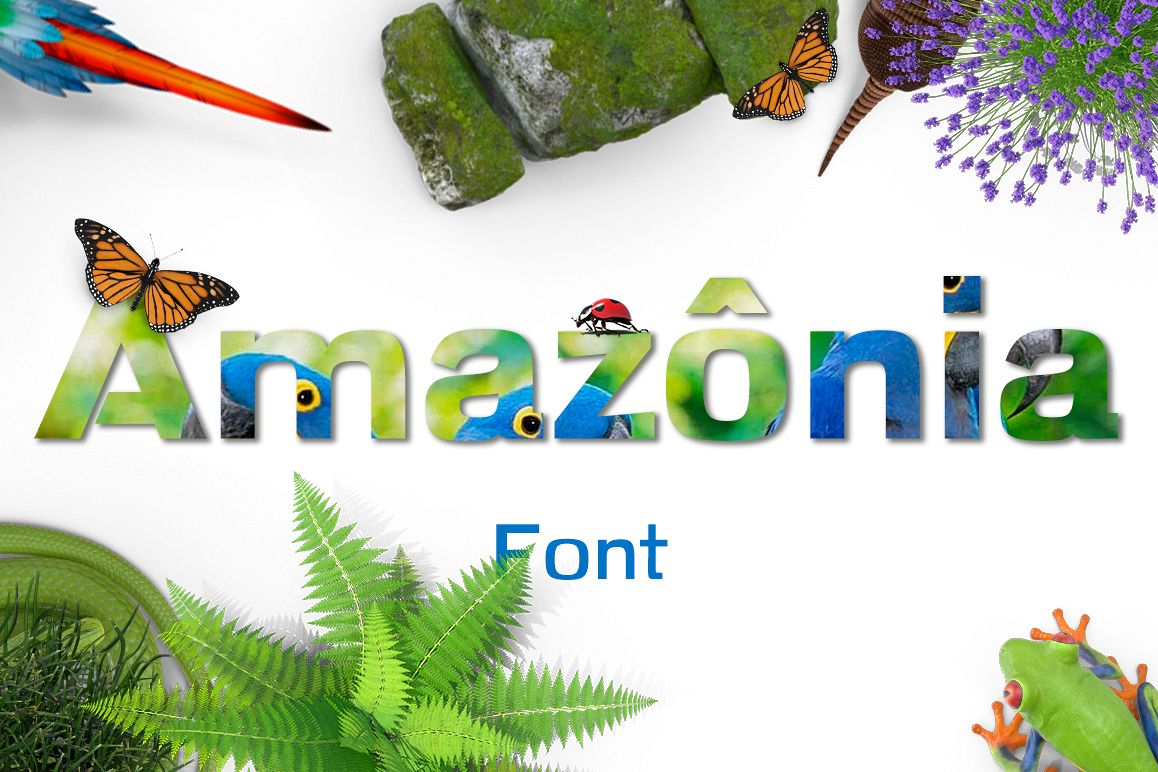
Amazon Sans Serif
Modern font without Serif, the font serves several projects for example: watermark, photography, blog header, poster, branding, logo, apparel, letter, stationery, etc.